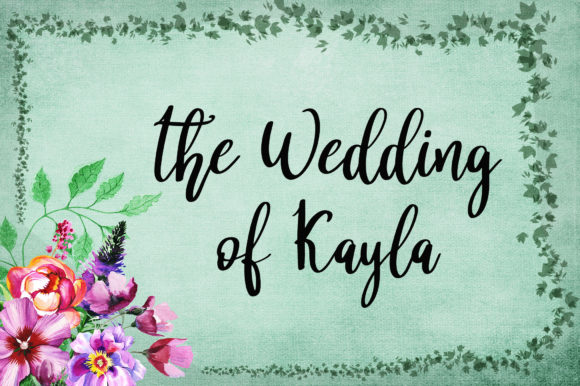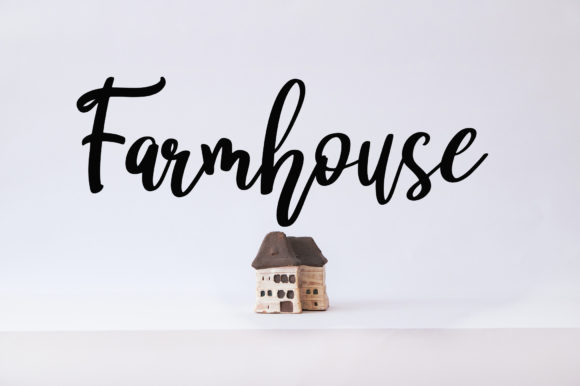
Baby Dog Font
db-ku.com - Script & Handwritten -- Baby Dog is a sweet, romantic and beautiful script font. It features delicate curves in every letter. This font is PUA coded which means you can access all of the glyphs and sweeps with ease!